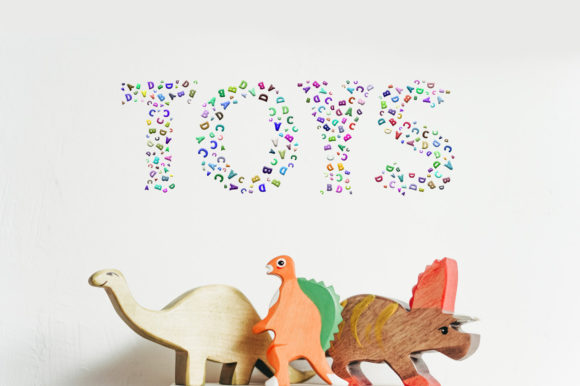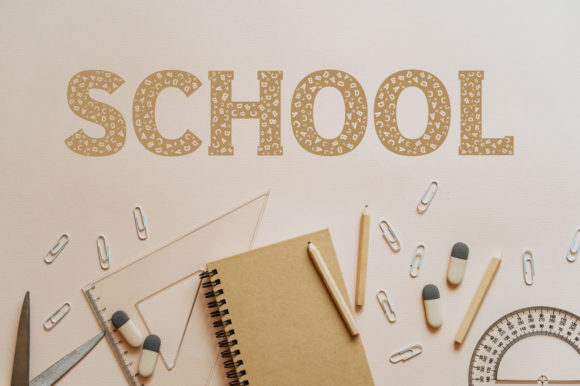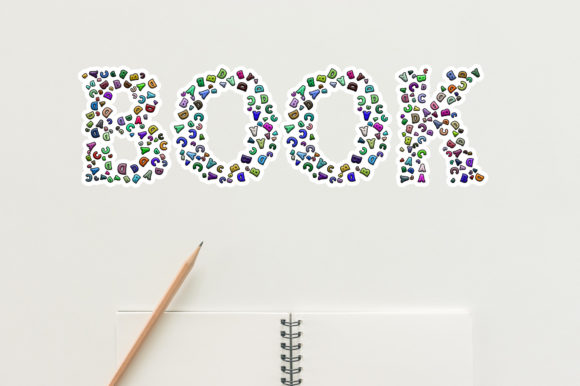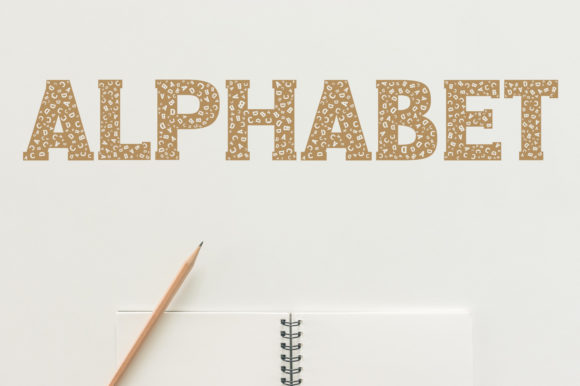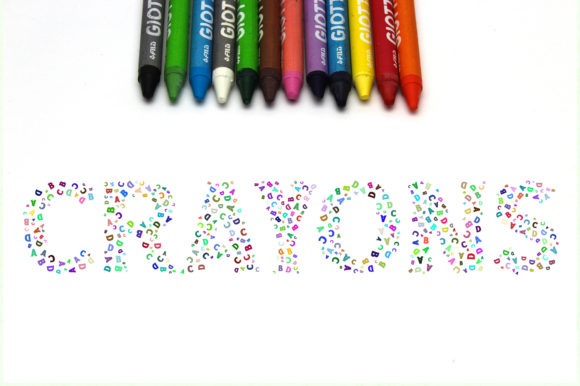
The Perfect Match for Your Creative Projects
Have you ever been stuck on a design project, searching for that one font that will tie everything together? We’ve all been there. You spend hours scrolling through font libraries, trying to find the perfect combination of style and sophistication. But what if you could find a font that effortlessly elevates your creations, making them stand out from the crowd?
Enter the Alphabet Font, a bold and neat display font that’s about to become your new go-to. This versatile font is designed to add a touch of elegance and sophistication to any project, whether it’s a logo, a poster, or a website. With its clean lines and modern feel, the Alphabet Font is a valuable asset for any designer looking to take their creations to the next level.
Whether you’re a seasoned designer or just starting out, the Alphabet Font is sure to become a trusted companion in your creative journey. Its potential to elevate any creation is unmatched, making it a must-have addition to your font library.
Key Features of Alphabet Font
- Font Type: Alphabet Font is a sans-serif typeface designed for digital use, making it ideal for screen-based applications.
- Unique Characteristics: Alphabet Font features a clean and modern design, with subtle rounded edges and a consistent line width, making it highly legible in a variety of contexts.
Designer Review: Alphabet Font
As a designer, I had the chance to work with Alphabet Font, and I must say it’s a mixed bag. ✨ Here are the things that work well:
- Unique and playful character set that’s perfect for kids’ materials, educational content, and other lighthearted projects.
- Clean and modern design aesthetic that’s easy on the eyes and works well in digital formats.
- Highly legible even at small font sizes, making it suitable for body text and titles.
However, there are some limitations to consider ⚠️:
- May not be suitable for formal or professional projects due to its playful nature.
- Can look a bit generic and lacks distinctive personality in certain contexts.
- May require additional styling or customization to stand out in crowded design spaces.
Overall, Alphabet Font is a solid choice for projects that require a lighthearted and approachable tone. While it may not be the most versatile font, it’s a great option for educational materials, children’s content, and other projects where a playful touch is desired.
Tips for Getting the Most Out of Alphabet Font
Use the Alphabet Font to create a playful and whimsical look in your designs.
Experiment with different font combinations and layering techniques to create a unique visual effect.
Use the Alphabet Font to highlight important information or add a touch of personality to your designs.